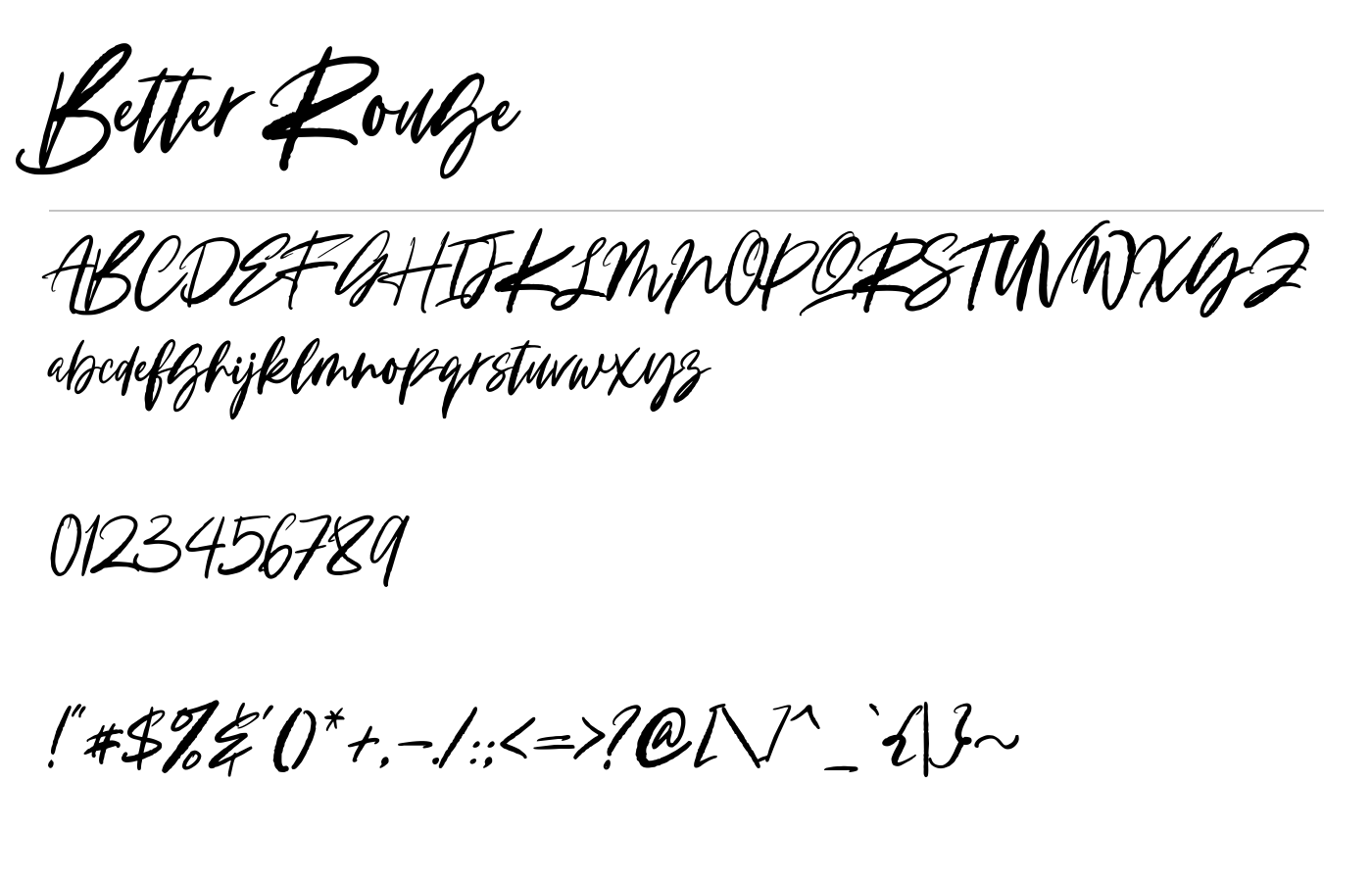
Better Rouge is a lively, modern script font that captures an energetic and handwritten feel with its bold, flowing strokes and slightly irregular forms. Its tall x-height and dynamic contrasts give it a casual yet confident personality, making it perfect for creative branding, fashion, and expressive headlines that seek a personal, stylish touch. This font works best where a handcrafted, vibrant, and approachable tone is desired, such as logos, posters, and editorial designs.
Better Rouge Font
About Better Rouge Font